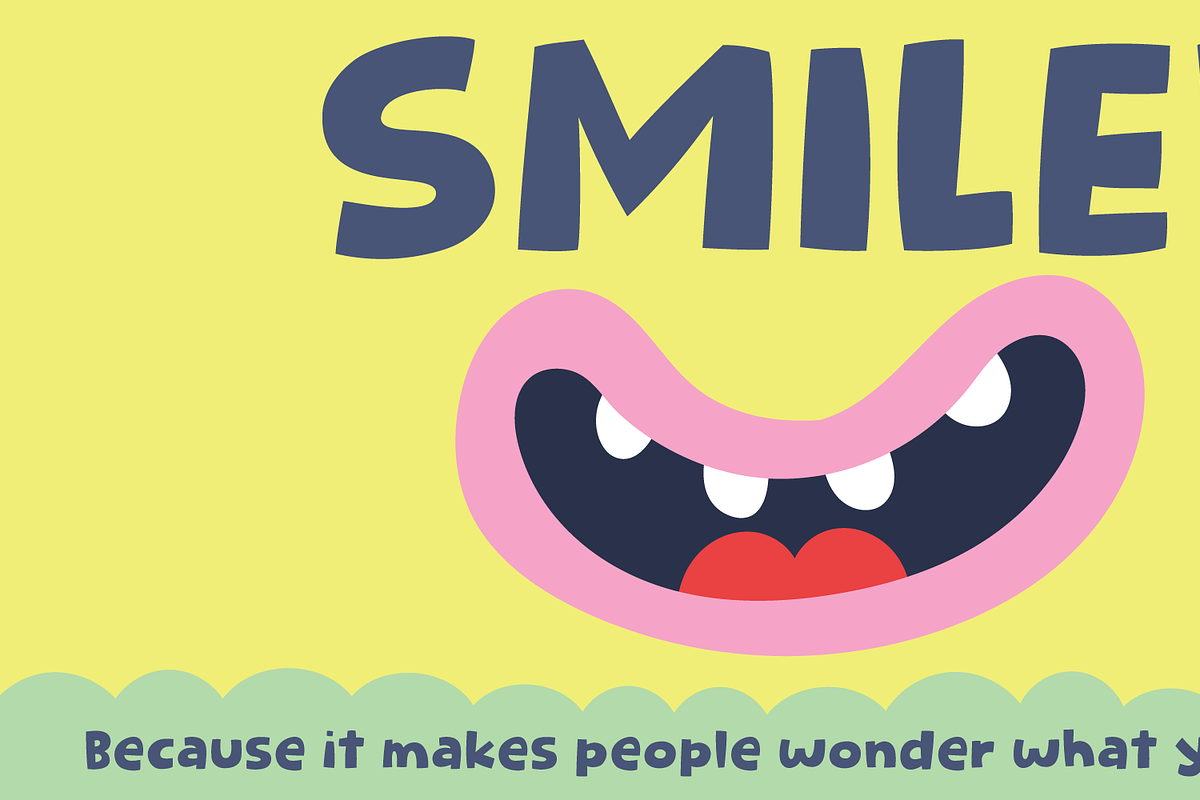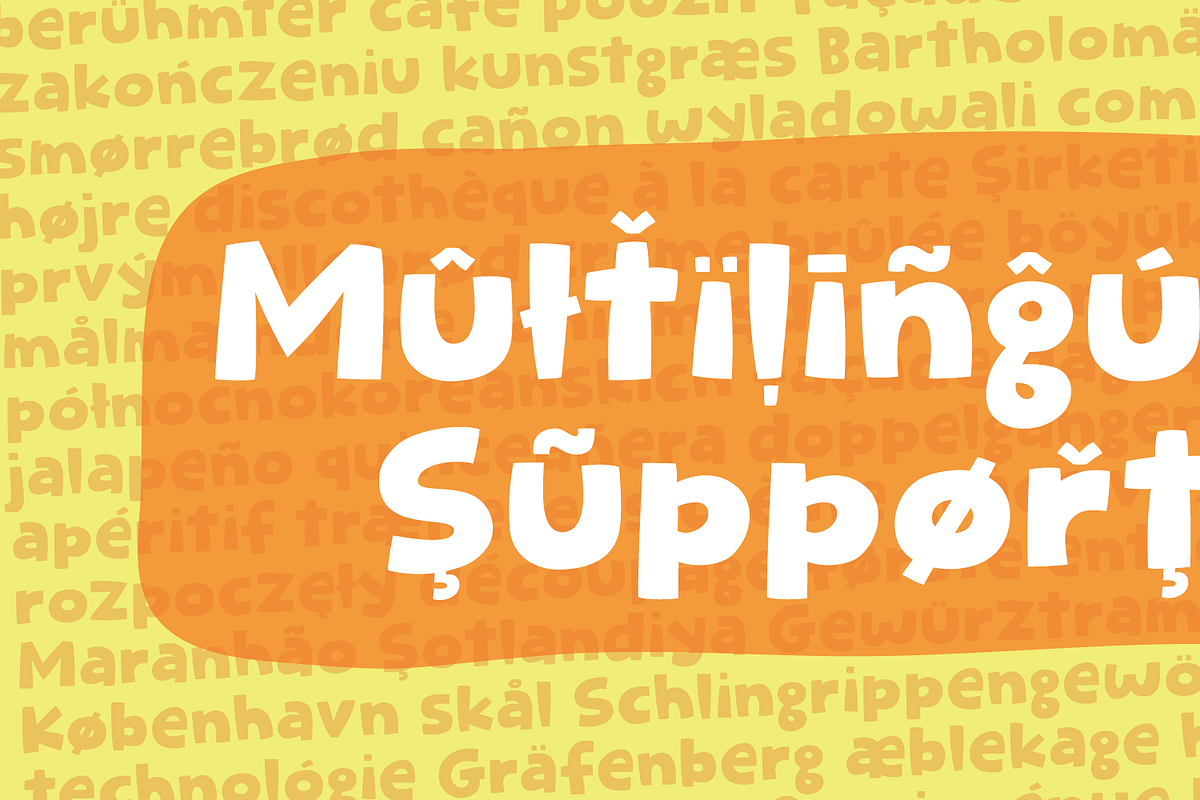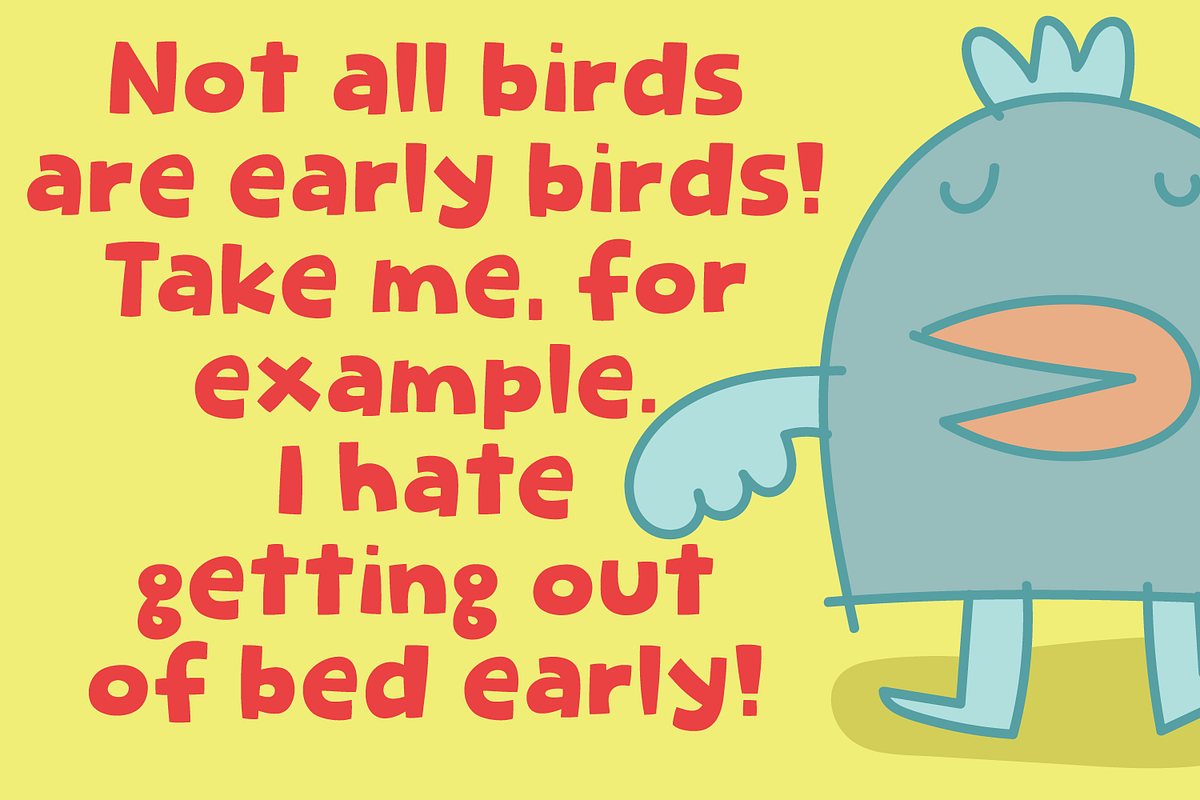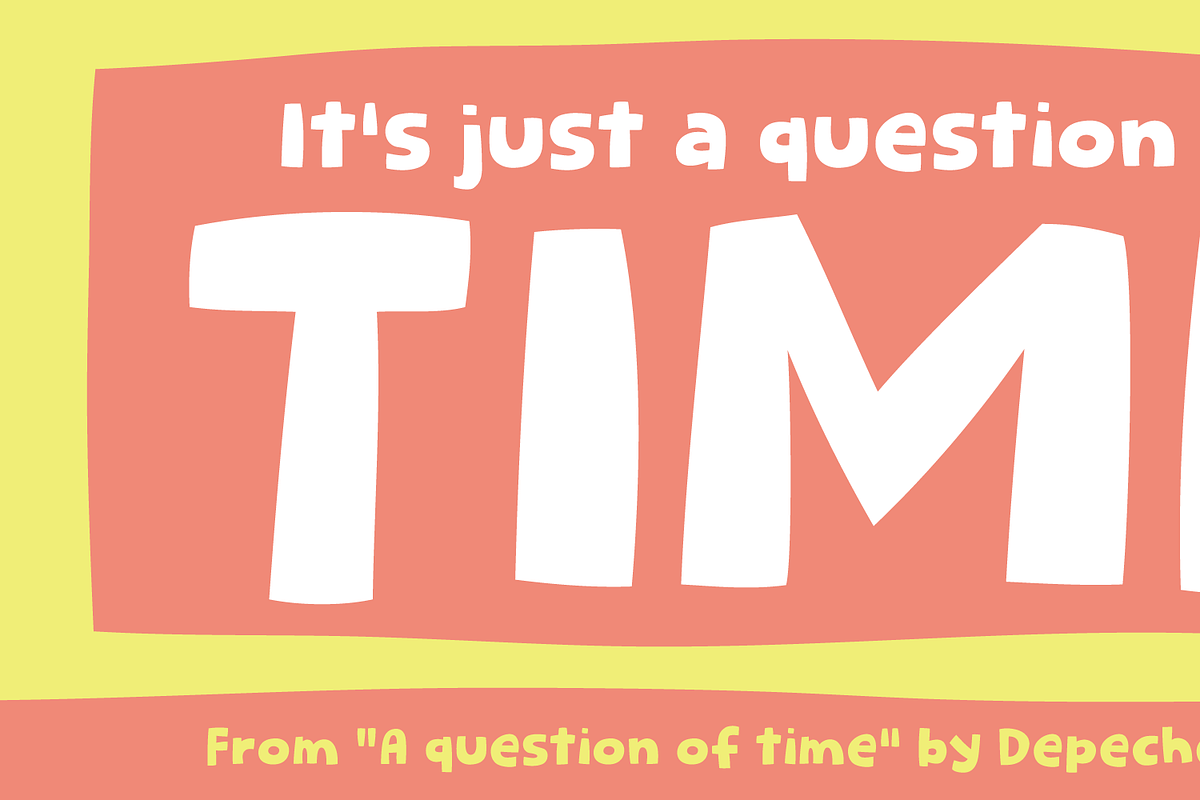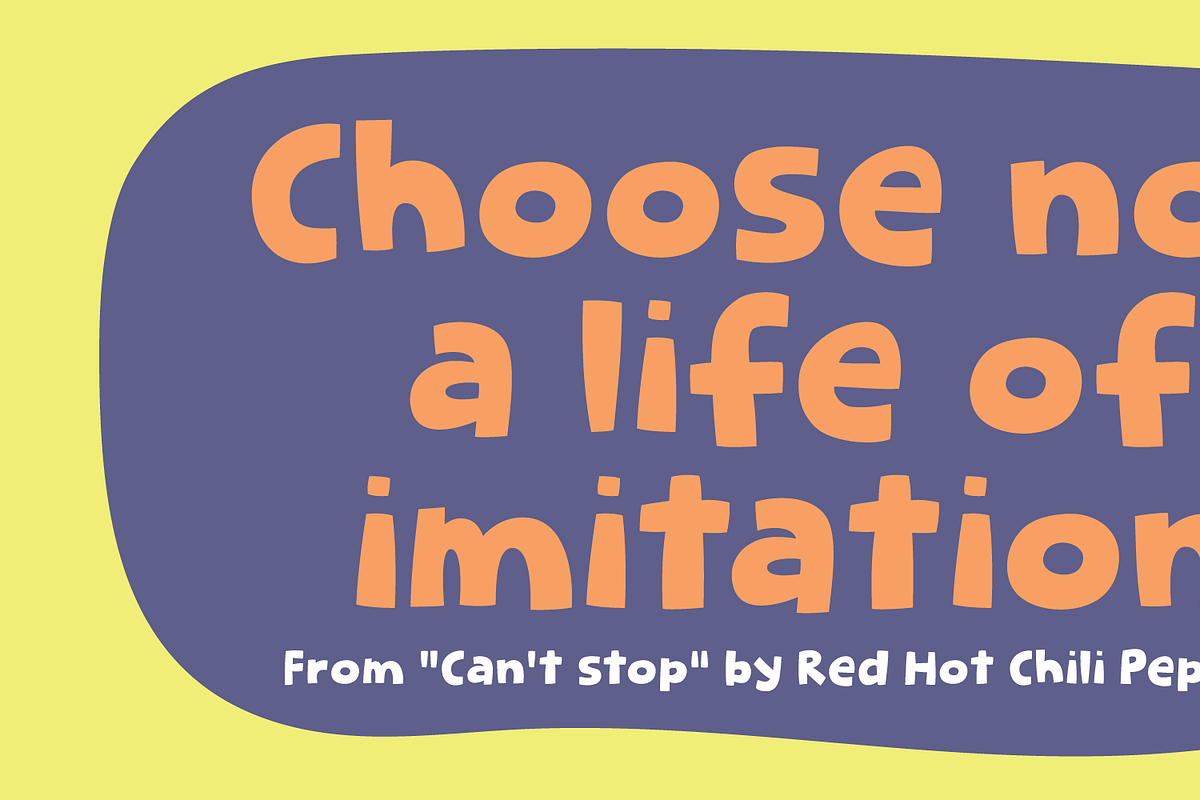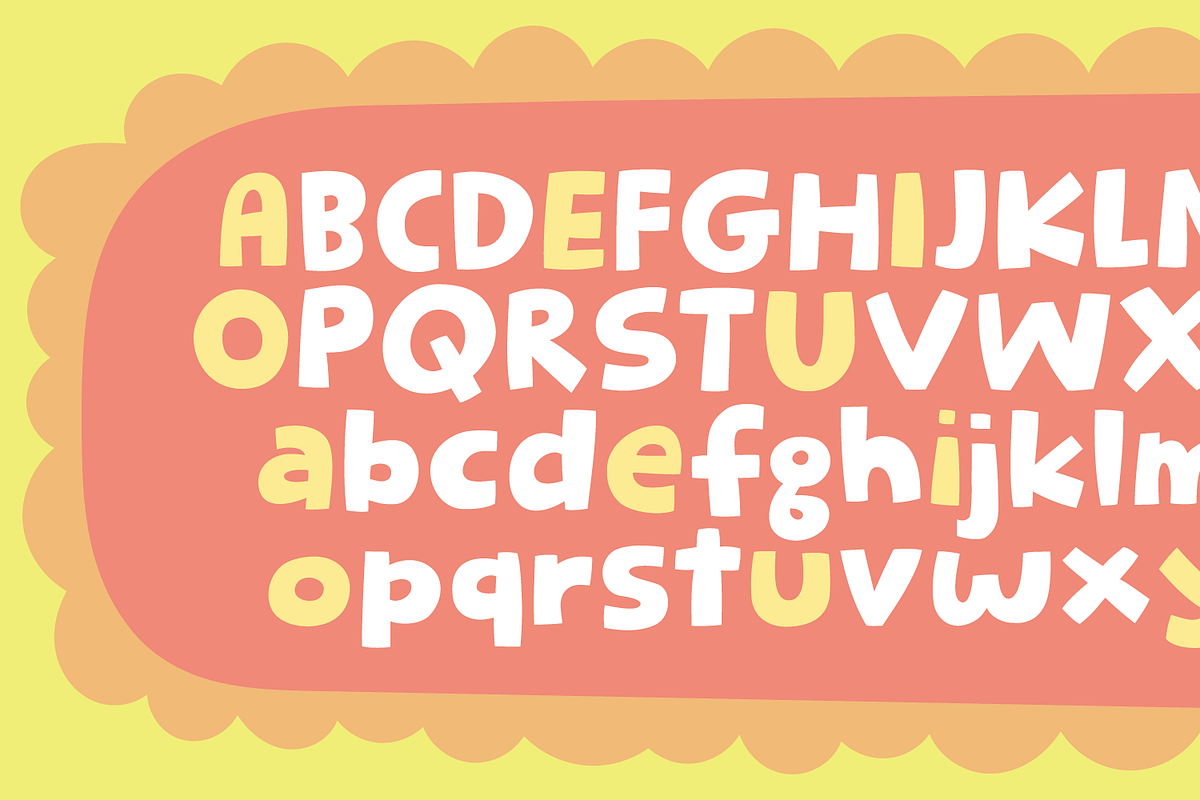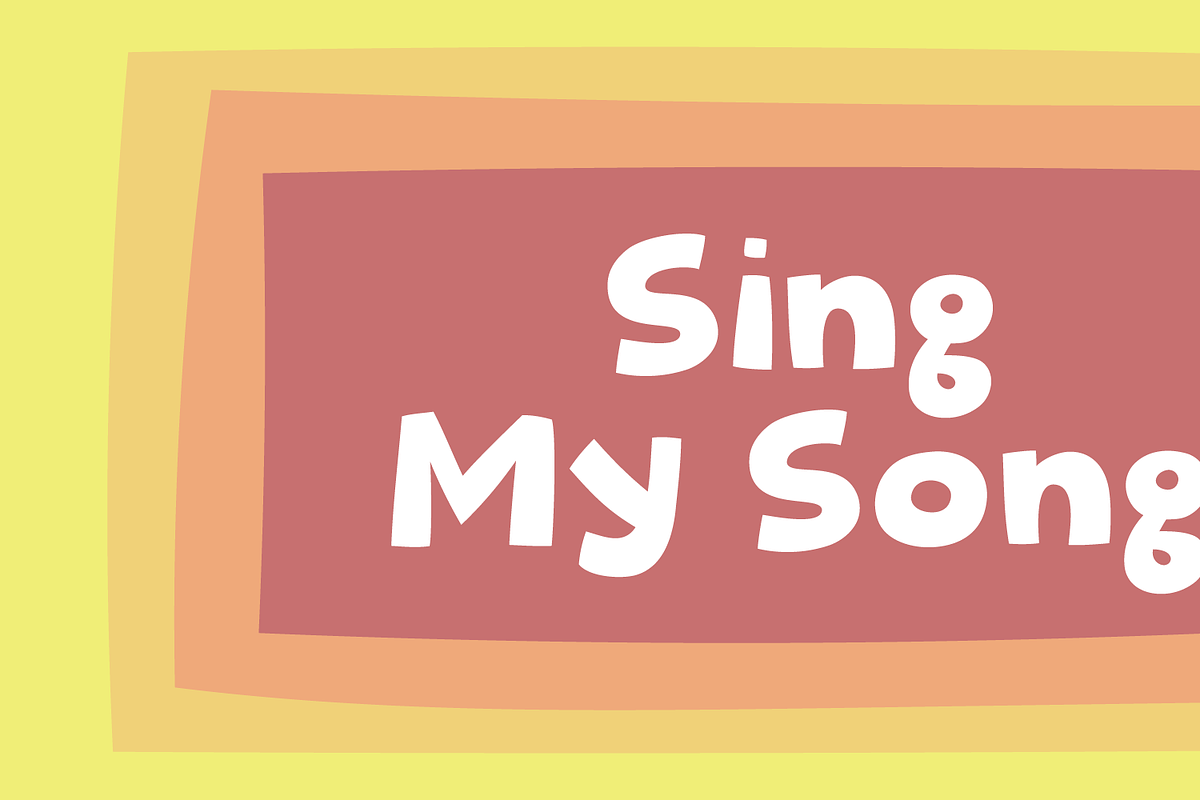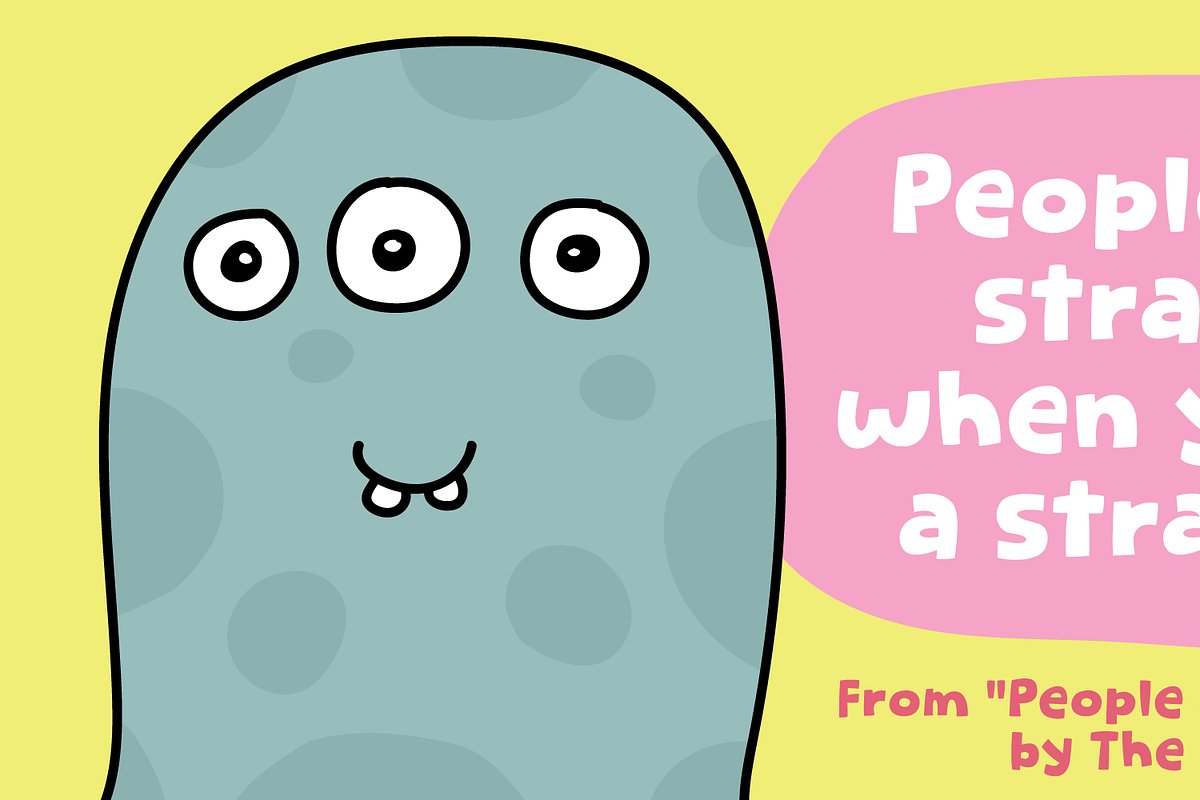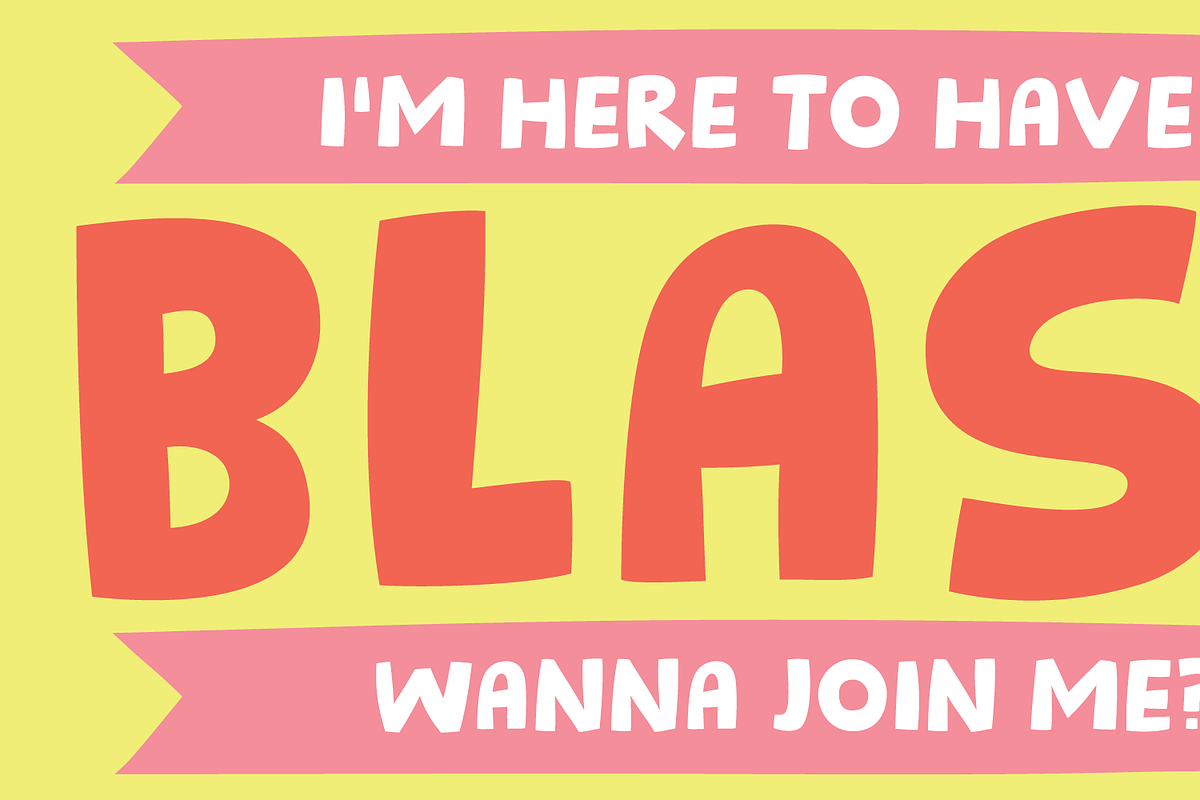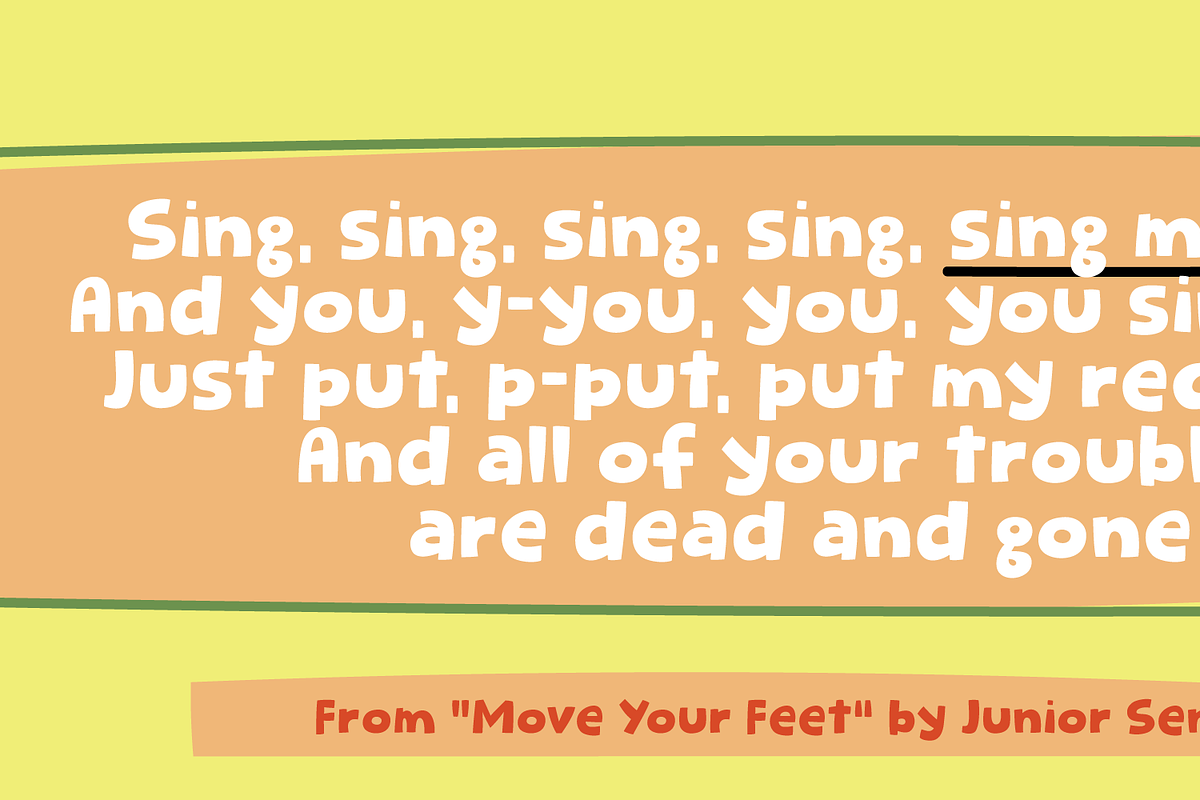
Sing A Song!
“Sing My Song” was originally handmade, using a slightly blobby pen. The result was okay, but I really wanted this to be a funny, fresh, legible comic font and found that it needed a fresh-up. Therefore I spent hours, manually tracing each letter. The result is this bouncy little troublemaker—chunky, cheeky, and full of bubblegum energy, like letters on a sugar rush! :) So, if you're ready to party-hardy-smarty, go play around with this sugary font!